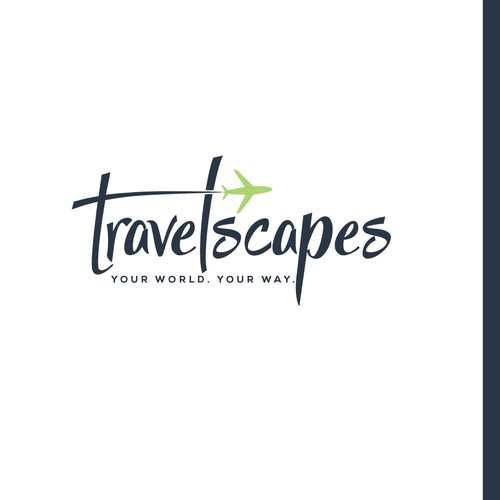
Travel Font Logo
While it is meant to be a display font this can be used as a casual body font.
Travel font logo. Generate logo designs for any industry. The font embodies the passion for travelling surfing nature and every thing else made with love. Includes paris font london font hawaii font mexico font rome font and tokyo travel font. Holiday travel font duo.
Clearwater hand drawn font with its hand drawn narrow lettering clearwater is a friendly travelers font inspired by everyones inner wanderlust. Customize your travel logo. See more ideas about travel logo font inspiration logos.